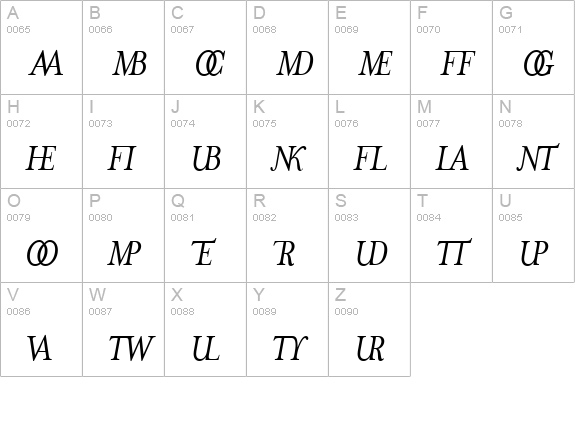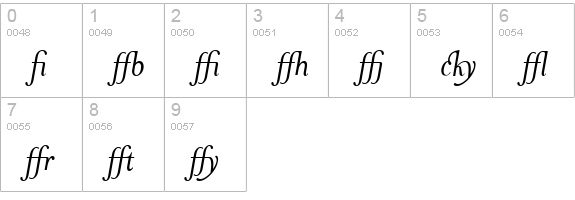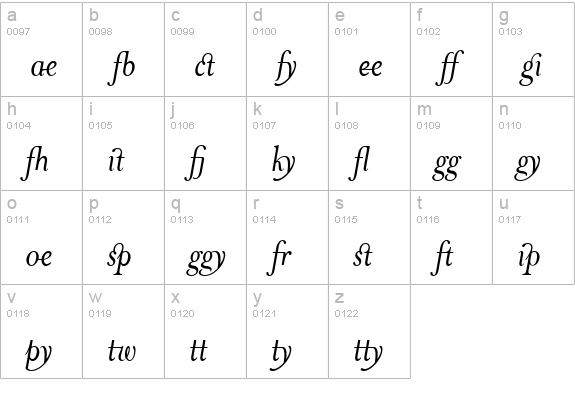
MrsEavesJustLig Italic Font Details
MrsEavesJustLig Italic is a distinctive, italic variant in the MrsEavesJustLig typeface family \xE2\x80\x94 well suited to design and typography projects.
MrsEavesJustLig Italic is a beautifully designed italic font that exudes elegance and sophistication. Its flowing curves and delicate serifs make it perfect for adding a touch of style to any project. This font is ideal for use in branding, invitations, and editorial designs where a touch of sophistication is desired. The best part? MrsEavesJustLig Italic is available for free download at FontsMarket.com, making it accessible to all designers looking to elevate their work with a touch of timeless elegance. Don't miss out on this stunning font that will bring a touch of class to your designs.